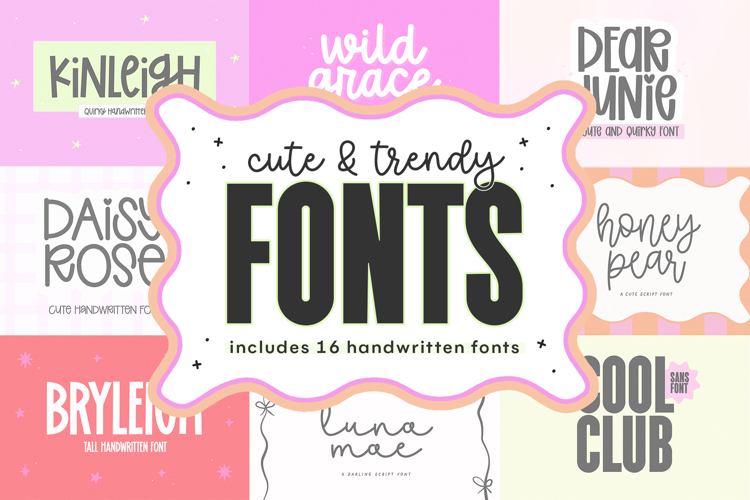
Girly Fonts
Girly fonts give invitations, planner covers and small shop logos a soft, sweet voice. Choose Preppy Girl's quirky hand lettering, the Stay Girly beauty script, the DARLING GIRLIES Valentine heart block font or Another Girlie's cute handwriting, from over 2,000 options that nearly all come in OTF and TTF.
Cute girly fonts compared: scripts, handwriting and playful letters
Each style suits a different job. A girly script font such as Stay Girly has flowing letters that look elegant on wedding signs and beauty branding, while Preppy Girl and Pinky Style are more playful and read well on kids' party invites and craft labels. If you want a girly handwriting font that looks like a note from a friend, Another Girlie keeps its letters loose and casual.
DARLING GIRLIES and Girly Valentine lean into hearts and love themes for February cards and classroom valentines. Several fonts are tagged for Cricut, and connected script letters need welding before they cut as one piece, as our guide to welding and shadows in Design Space shows. For lettering on a tablet, browse Procreate Fonts, or see Photoshop Fonts for photo edits.